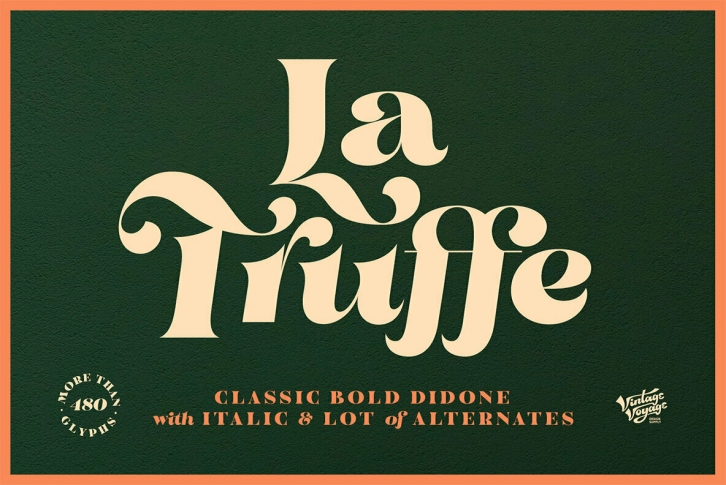
La Truffe. A super stylish Didone font. Comes with two styles - Regular and Italic. High contrast strokes gives a refinement into your project. Access your OpenType features to access the large selection of alternate letters and some ligatures. Calligraphic Italic can play with Regular in pair or can be used as independent mainline typeface. More than 480 glyphs total.
La Truffe is a versatile font, which can be used in you branding ads, magazine headlines, posters, wedding invitations, product packaging, business cards etc.
La Truffe is multilingual. Supports: Czech, Danish, Dutch, English, Estonian, Faroese, Finnish, French, Galician, German, Icelandic, Irish, Italian, Norwegian, Portuguese, Polish, Spanish, Swedish, Swiss German